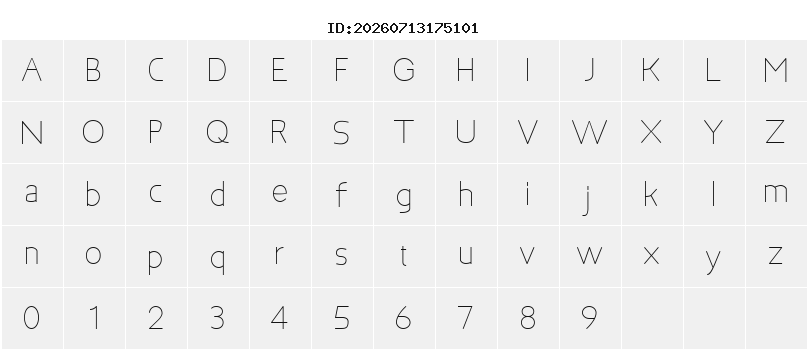
Bakersfield Preview
• Font Name: Bakersfield
• Font Style: Light
• Full Font Name: Bakersfield Light
• PostScript Name: Bakersfield-Light
• Designer: Osama El Khalfaoui
• Manufacturer: Osama El Khalfaoui
About Bakersfield.ttf
Bakersfield.ttf is a modern, elegant sans-serif font designed for ultimate readability and visual harmony. Perfect for branding, headlines, web design, and print materials.